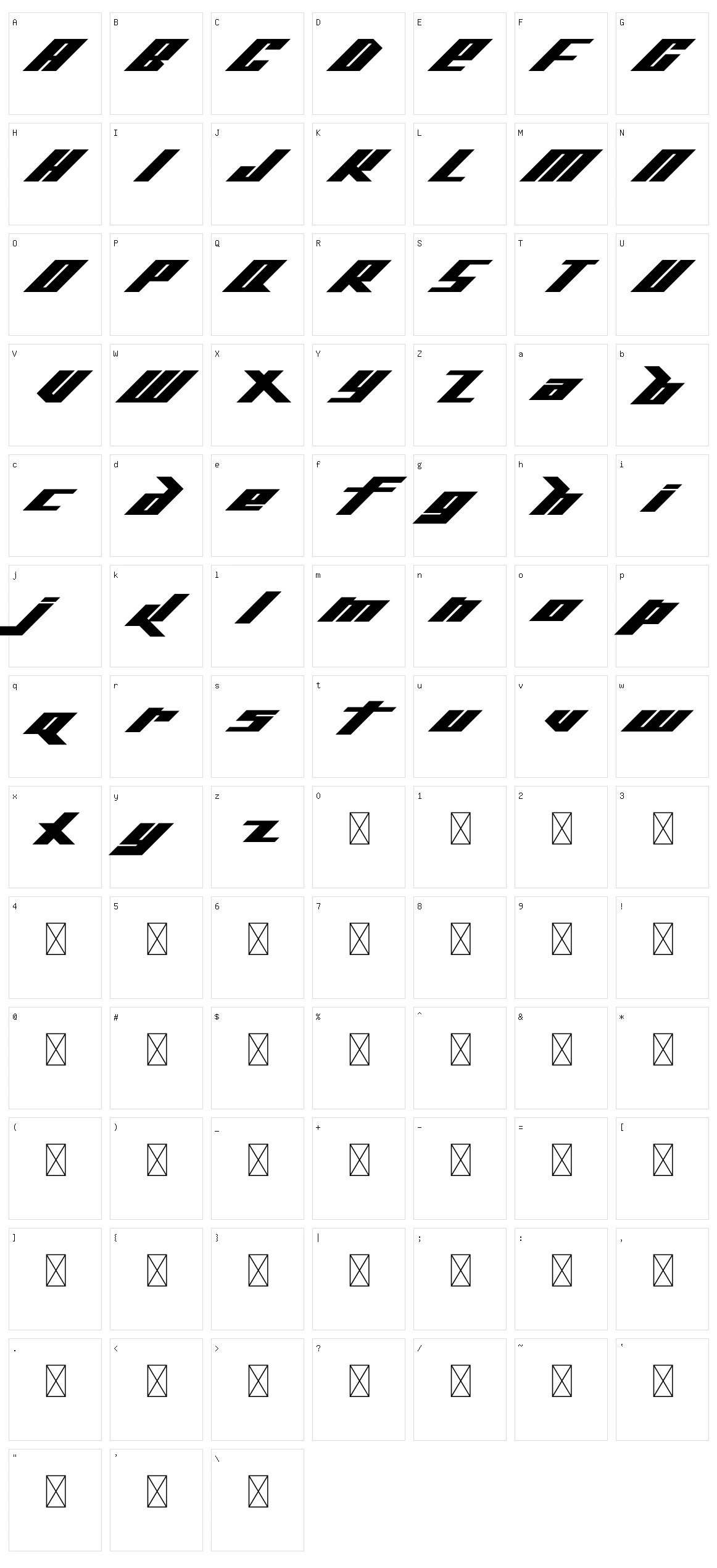
Hypik
Designed by: Matt Wilson
ABOUT THIS FONT
This font was inspired by Roadam by HVNTER, the Vector Heart design movement, and Björk's logo. Apologies that there are no numbers or punctuation. Want to flesh out or improve this font? Feel free! Please see the included Adobe Illustrator file for information on how it was created. Feedback and general comments are welcomed. Visit mattcolewilson.com for more.